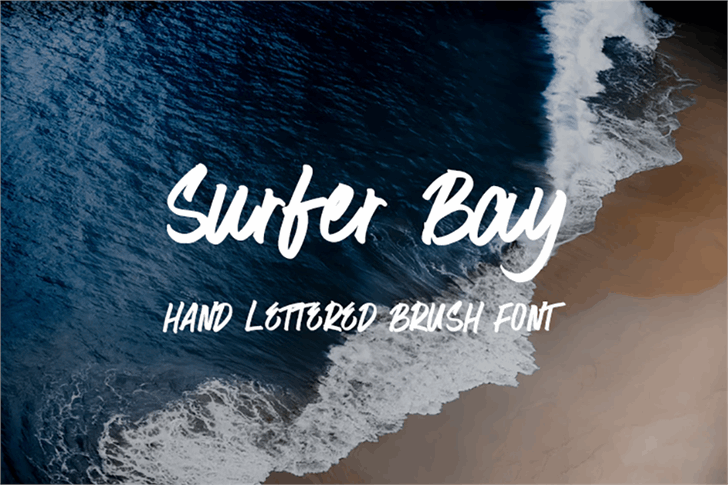
Free Surfer Bay Font
Take a look at this adorable free surfer bay font. Font Space has created this amazing and beautiful font. Showcase your designs like a graphic design pro by adding a new touch with this cool font.